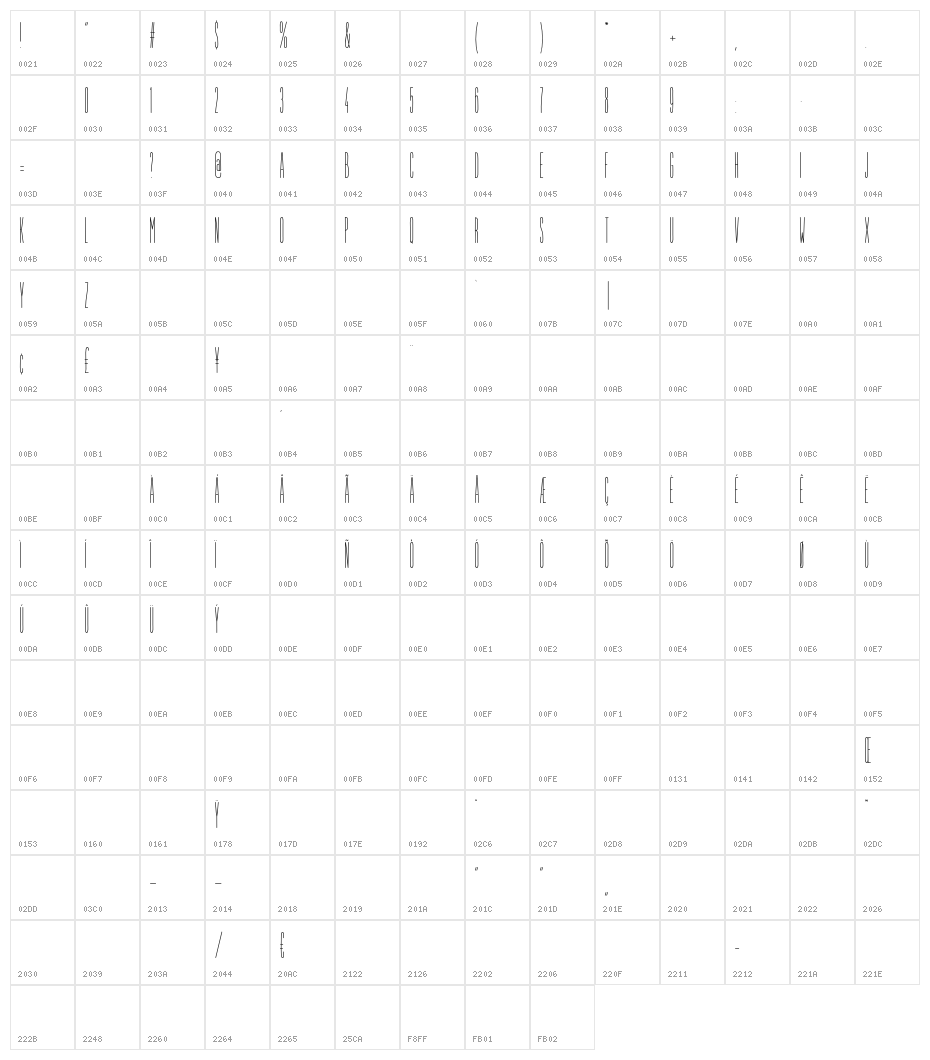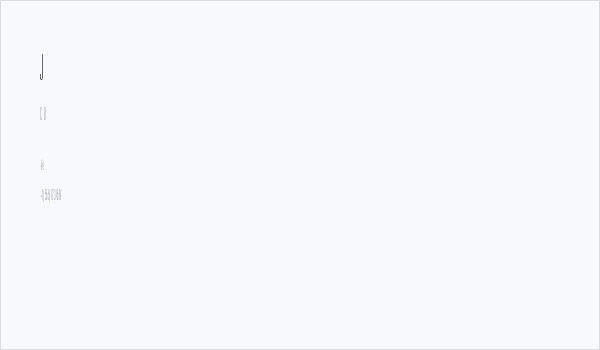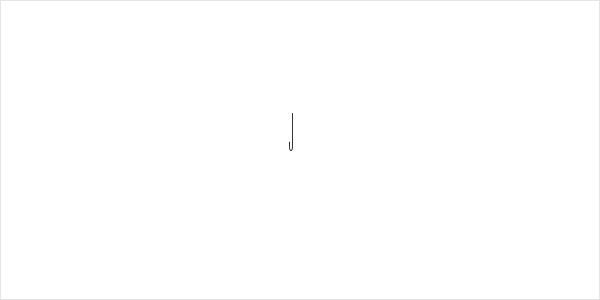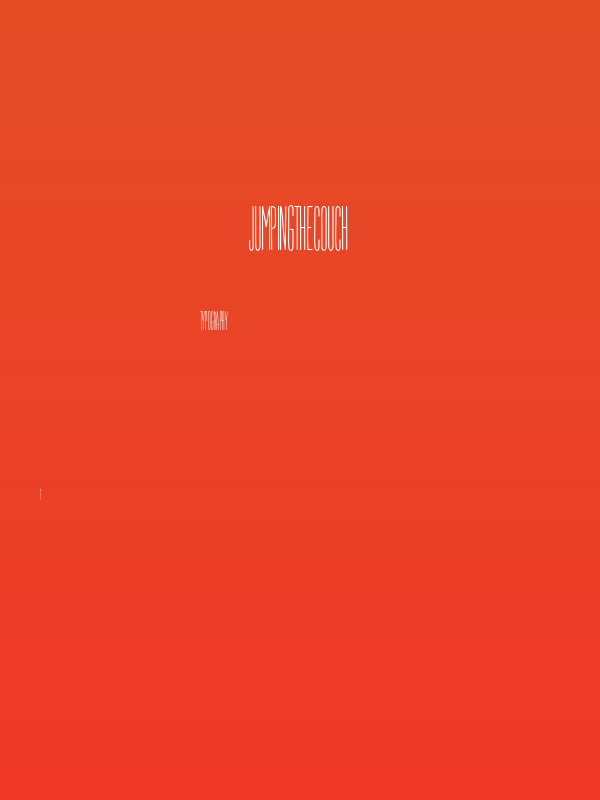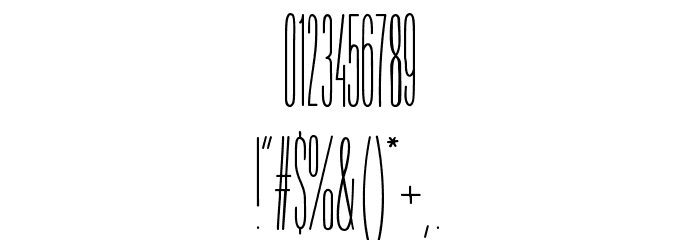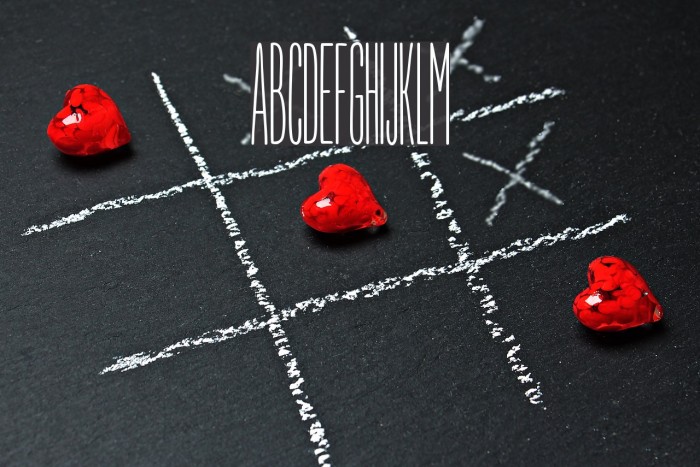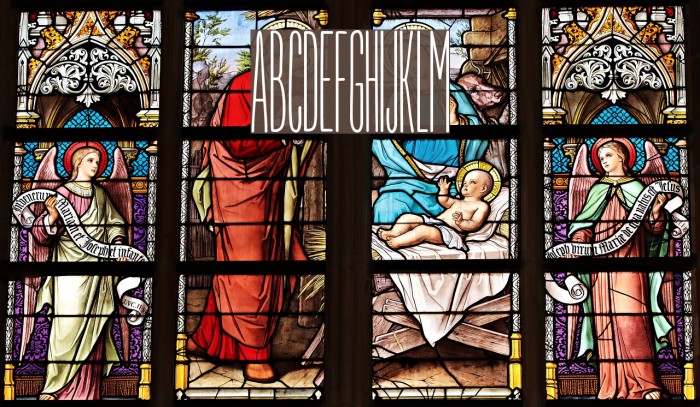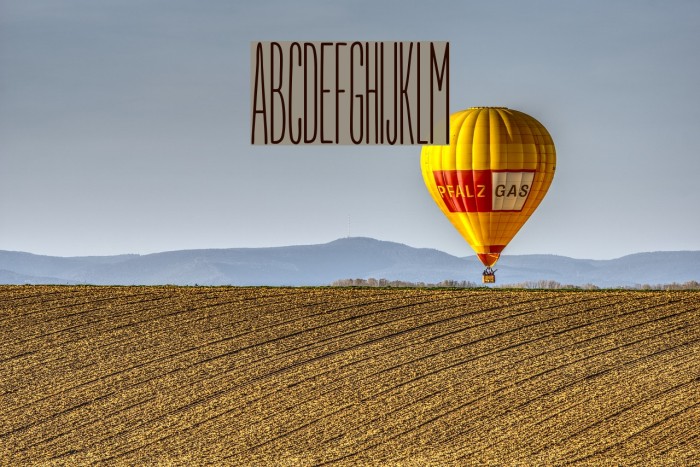
Jumpingthecouch Font
Jumpingthecouch Description
This font features an elongated and narrow design, characterized by tall, thin letters with a modern and sleek appearance. The vertical emphasis is prominent, giving it a sophisticated and elegant look. The characters are uniformly spaced, maintaining a consistent flow across the text. The font's minimalistic style is accentuated by its clean lines and lack of serifs, making it highly legible and suitable for contemporary design projects. Its unique structure makes it stand out, especially in settings that require a touch of modernity and elegance.
| Proposed Projects | Ideal for fashion magazines, luxury branding, modern posters, and minimalist web design. |